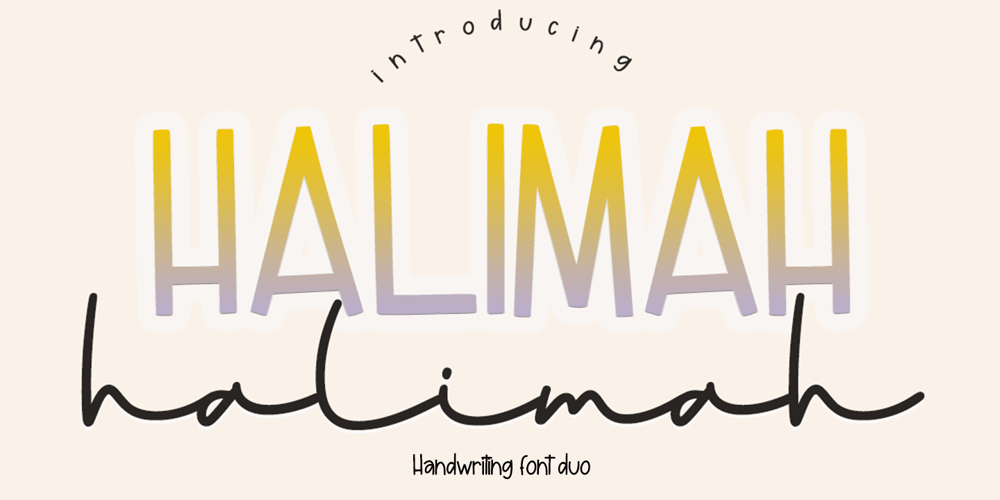
Halimah Font Family was designed by Muhammad Zaini and published by Cocodesign. Halimah contains 2 styles and family package options. Introducing the elegant Halimah Script Font Duo, characterized by its modern aesthetics and unique, irregular baseline. With its trendy and feminine charm, this font duo transcends expectations, proving its versatility across a wide array of applications. The exquisite beauty of Halimah Script truly shines when used in wedding invitations, thank-you notes, expressive quotes, warm-hearted greeting cards, and compelling logos. Whether you’re branding a business card, or simply expressing personal creativity, the versatility of Halimah script takes center stage. Its perfect compatibility with ink or watercolors only adds to its artistic allure, making it a preferred choice for any design projects requiring a modern flair.